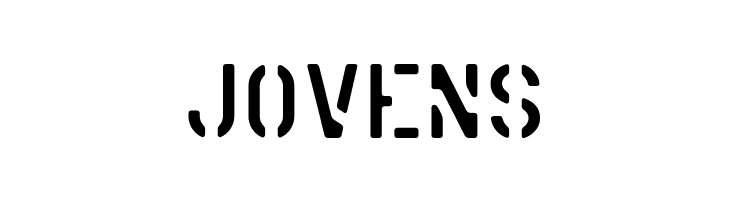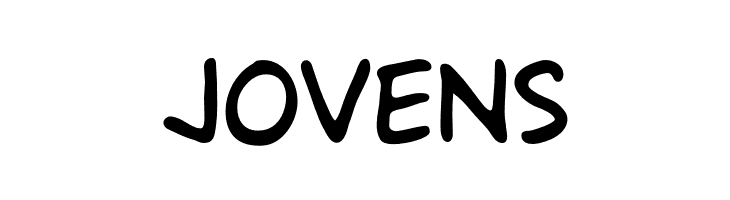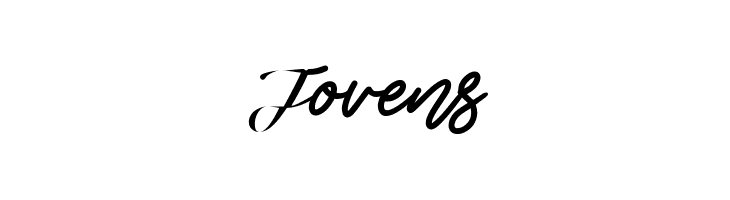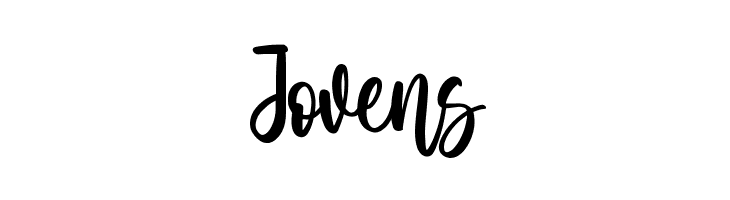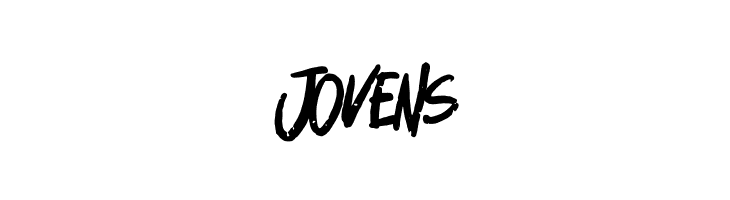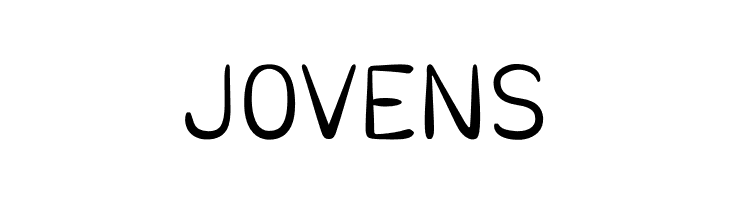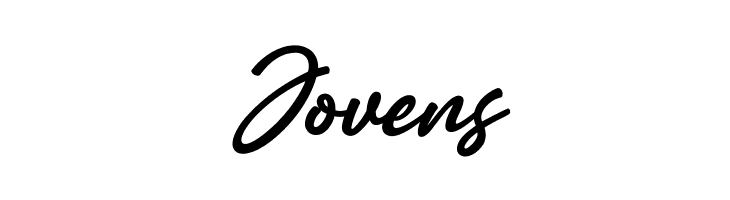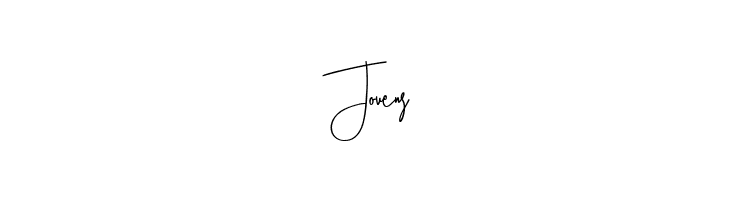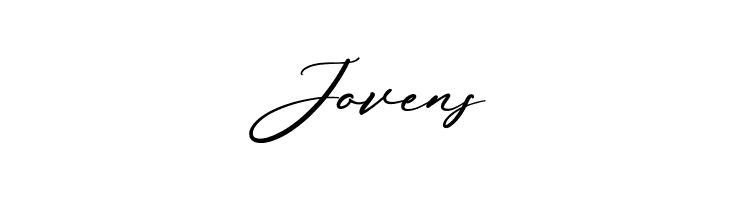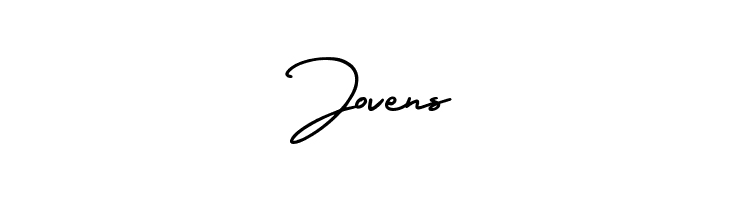
A sophisticated and elegant script font with fluid, flowing letterforms.
An elegant script font with graceful curves and intricate details.
A cursive, elegant font with smooth, flowing strokes and a sophisticated style.
A bold, stencil-style font with geometric shapes and distinct cutouts.
A bold, cursive font with high contrast and dramatic flourishes.
A playful handwritten font with tall, narrow letters and a casual style.
A bold, 3D, condensed font with outlined characters and a geometric style.
A bold, angular font with a dynamic slant and strong visual impact.
A bold, condensed font with a dynamic slant and tight spacing.
A bold, condensed font with a dynamic and modern style.
A bold, angular font with a dynamic, futuristic style.
A bold, condensed font with a dynamic and modern style.
A bold, futuristic font with geometric shapes and sharp angles.
A bold, outlined, and condensed font with a modern geometric style.
A sophisticated handwritten font with fluid, cursive strokes.
A modern serif font with bold, structured characters and elegant curves.
A whimsical handwritten font with playful loops and delicate strokes.
A bold, textured font with a rough, distressed appearance and vintage charm.
An elegant script font with flowing, interconnected letters and refined flourishes.
A bold, dynamic handwritten font with fluid strokes and playful curves.
A fluid, cursive script font with elegant, interconnected strokes.
An elegant script font with flowing, cursive strokes and intricate flourishes.
A bold, expressive script font with fluid, cursive strokes and elegant style.
A playful, handwritten font with rounded edges and a casual style.
A sophisticated script font with fluid, cursive strokes and elegant flourishes.
An elegant, flowing script font with a natural handwriting style.
A playful, whimsical handwritten font with flowing strokes.
An elegant and decorative serif font with high contrast and unique character designs.
A modern, elegant handwritten font with fluid, cursive strokes.
A modern handwritten script with fluid, elegant lines.
A graceful script font with flowing, interconnected letterforms and elegant swashes.
A playful, handwritten font with rounded, consistent strokes and a casual feel.
A playful, handwritten font with rounded edges and a casual style.
A bold, brush-style font with dynamic, hand-drawn strokes.